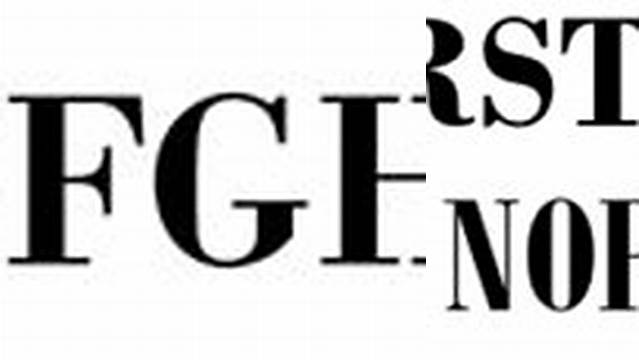
Hey guys! Today, we're diving deep into the world of typography and, more specifically, the Monotype Bodoni Std Bold font. If you're a designer, a writer, or just someone who appreciates a good font, you've probably come across this classic. This article is your comprehensive guide to everything you need to know about Monotype Bodoni Std Bold, including how to snag a free download, its history, its uses, and some nifty alternatives. Get ready to elevate your design game!
What is Monotype Bodoni Std Bold? Unveiling the Elegance
Alright, let's start with the basics. Monotype Bodoni Std Bold is a member of the Bodoni family, a group of serif fonts known for their elegance and high contrast. Designed by Giambattista Bodoni in the late 18th century, these fonts quickly became a symbol of sophistication and refinement. The Bold variant, as the name suggests, is a heavier version of the regular Bodoni font. This makes it ideal for headlines, titles, and anything that needs to grab attention. The design is characterized by its thin serifs, vertical stress, and dramatic contrast between thick and thin strokes. This gives it a distinctive look that’s both modern and timeless. The font is crisp, clean, and exudes a sense of luxury. The beauty of Monotype Bodoni Std Bold lies in its versatility. While it's often associated with high-end brands and publications, it can be used in a variety of projects. Its clean lines make it highly legible, and its bold weight ensures that it stands out. Whether you're working on a magazine layout, a website design, or a marketing campaign, this font can add a touch of class and sophistication. The history of the Bodoni font family is also fascinating. Giambattista Bodoni, an Italian printer and typographer, was a pioneer of modern typography. His designs were a departure from the more ornate fonts of the time, focusing on clarity and precision. His work influenced countless designers and typographers, and the Bodoni fonts have remained popular for centuries. The Monotype Bodoni Std Bold that we know today is a digital version, but it stays true to Bodoni's original vision. Understanding the font's characteristics, like its high contrast, thin serifs, and vertical stress, will help you make the most of it. It's not just about downloading a font; it's about understanding how to use it effectively to create visually appealing and impactful designs. The key is to experiment with different sizes, weights, and spacing to achieve the desired effect. For example, using Monotype Bodoni Std Bold for a headline can instantly make your design more eye-catching, while pairing it with a more readable font for body text will enhance readability and create a balanced look. Overall, Monotype Bodoni Std Bold is a powerful tool in a designer's toolkit, offering both beauty and functionality.
Uses of Monotype Bodoni Std Bold: Bringing Your Designs to Life
Okay, so you've got your hands on Monotype Bodoni Std Bold. Now what? This is where the fun begins! The possibilities are pretty much endless, but let's explore some of the most popular and effective uses of this amazing font. It works super well for headlines and titles. Its boldness and high contrast make it perfect for grabbing attention and making a statement. Whether you're designing a website, a poster, or a magazine cover, Monotype Bodoni Std Bold will help your message stand out. Consider it for branding and logo design. Its elegant and sophisticated look can give your brand a premium feel. Many high-end fashion brands and luxury companies use Bodoni fonts in their logos. If you're aiming for a similar aesthetic, this font is a fantastic choice. You can also use Monotype Bodoni Std Bold for print materials. Think brochures, flyers, and even business cards. Its clean lines and high legibility make it ideal for these types of projects. Just remember to balance it with a more readable font for body text. In digital design, Monotype Bodoni Std Bold can be used to create engaging user interfaces. The font's boldness and clarity are perfect for headings and call-to-action buttons, which can improve user experience. It's important to consider the context of your design. For instance, if you're creating a design for a sophisticated audience, Monotype Bodoni Std Bold can add to the overall aesthetic. If you're creating a design for a more casual audience, you might want to use the font sparingly. The font can also be used in social media graphics. The bold and elegant look of the font will capture attention in a crowded social media feed. This can make your posts and graphics more effective. Experiment with different font sizes and weights. This allows you to create visual hierarchy and guide the viewer's eye. Make sure your font choices complement each other. Pairing Monotype Bodoni Std Bold with a more readable body font is crucial for creating a balanced design. The key to successfully using Monotype Bodoni Std Bold is to experiment and find what works best for your specific project. It’s about creating a look that is both visually appealing and communicates your message effectively. So go ahead, unleash your creativity and have fun!
Alternatives to Monotype Bodoni Std Bold: Exploring Other Options
While Monotype Bodoni Std Bold is an awesome font, it's always good to have options, right? Exploring alternatives can give you more flexibility and help you find the perfect font for your project. Let's dive into some great alternatives that offer a similar look and feel. Bodoni MT Bold is a direct relative and an excellent choice. It offers a similar elegance and high contrast. It's available in various weights and styles, making it a versatile option for various design needs. It's a safe bet if you're after that classic Bodoni look. Didot Bold is another superb choice. It is also a classic Didone typeface known for its high contrast and refined appearance. Its clean lines and elegant serifs make it an excellent alternative to Monotype Bodoni Std Bold. It is often used in fashion magazines and high-end branding. Playfair Display Bold is a great choice for digital projects. It's a free, open-source font that's designed to be used in larger sizes, such as headlines. It has a high contrast, similar to Bodoni, but is designed for screen readability, making it perfect for websites and digital graphics. Roboto Slab Bold could be another option if you need a more versatile and modern font. This font is part of the Roboto family. It offers a clean and legible design. It's a great alternative if you are looking for something modern with a touch of sophistication. Source Serif Pro Bold is a versatile, open-source font. The font has a similar elegance. It's great for both print and digital applications. It is particularly useful for longer text sections. Avenir Next Bold is a sans-serif option, this font offers a clean and modern look, offering great readability. It can be a great option if you're looking for something that’s still stylish but has a different feel than a serif font. Remember, the best alternative will depend on your specific project needs. Consider the overall aesthetic you’re aiming for. The readability, and the license of each font when making your decision. When choosing an alternative, it’s always a good idea to test it in your design. See how it looks in the context of your project. Experiment with different sizes, weights, and spacing to find the perfect match. This is how you get the best result! There are many other alternatives. Always be open to exploring different typefaces. You might find a font you never knew you'd love. The goal is to find something that complements your design. The perfect font will enhance the look and feel of your project.
Tips for Using Monotype Bodoni Std Bold Effectively
Okay, you’ve got the font, you know where to use it. Now, let’s talk about how to use Monotype Bodoni Std Bold effectively. First up, you gotta consider the contrast. This font has a high contrast. Pair it with a font with a lower contrast, or you might end up with a design that is too overwhelming or illegible. Use the correct size. Don’t make your font too big, or it will overpower your design. Likewise, if you make it too small, your text will be difficult to read. It's all about finding that sweet spot. Keep the spacing right. Adjust the letter spacing and line height to ensure your text is easy on the eyes. You don't want letters or lines to be crammed together, or you might create a difficult-to-read mess. Balance is key. Use Monotype Bodoni Std Bold sparingly. This font is perfect for headlines, titles, and emphasis. But using it for large blocks of text can be overwhelming. Think about how you're using other visual elements in your design. Make sure they complement the font. Consider the overall aesthetic and color scheme of your project. Keep the context in mind. The font is often associated with luxury and sophistication. Make sure it fits the tone of your brand and the message you’re trying to convey. Experiment with different weights and styles to achieve the desired effect. Play around with different sizes and weights of the font to see what works best for your project. See how the font looks when paired with images, colors, and other elements. And don’t be afraid to try different things. That's how you discover new styles. Make sure that you have all the necessary software and fonts installed on your computer. Otherwise, you won't be able to make the most out of your design. Always double-check your work. Review your design from multiple angles. Make sure everything looks perfect before you finalize it. The best advice I can give you is to never stop learning and experimenting. Try new things. Step outside your comfort zone. The more you experiment, the better you'll get. Use different online resources and tutorials. This will help you to better understand the tools and techniques you're using.
Conclusion: Embrace the Elegance of Monotype Bodoni Std Bold
So there you have it, folks! Everything you need to know about Monotype Bodoni Std Bold. From its rich history and elegant design to where to find it and how to use it effectively. This font is a powerful tool that can transform your designs, adding a touch of sophistication and class. Whether you're a seasoned designer or a design newbie, Monotype Bodoni Std Bold is a font worth exploring. Its versatility, beauty, and timeless appeal make it a great choice for a wide range of projects. Remember to always prioritize safety when downloading fonts and respect the licensing agreements. With these tips and knowledge, you're well on your way to creating stunning and memorable designs. Get out there, experiment, and have fun! Your design journey is just beginning, and with Monotype Bodoni Std Bold by your side, you're ready to create some amazing things!